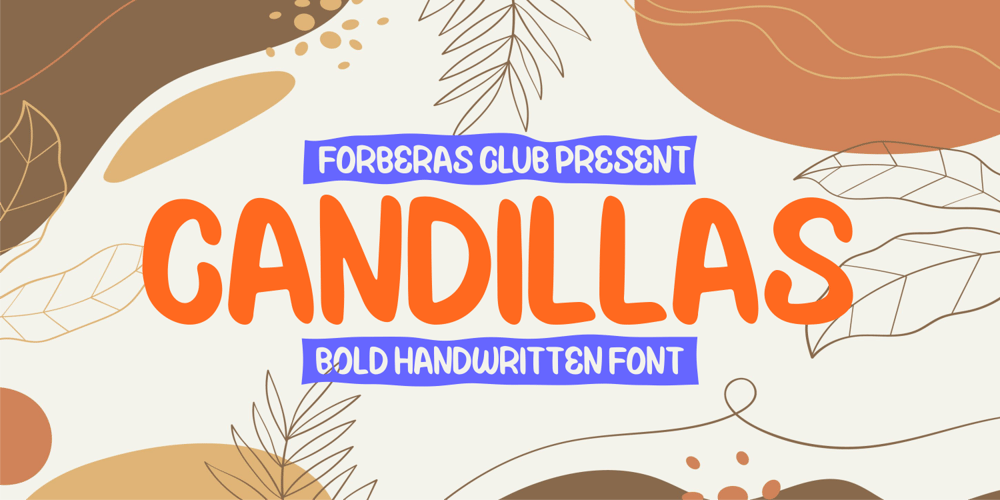
Candillas Font Family was designed by ANGGI HERMAWAN and published by Forberas Club. Candillas contains 1 styles and family package options. This Candillas font is made with a marker that has a curve that looks beautiful to look at and can be used for a variety of purposes.